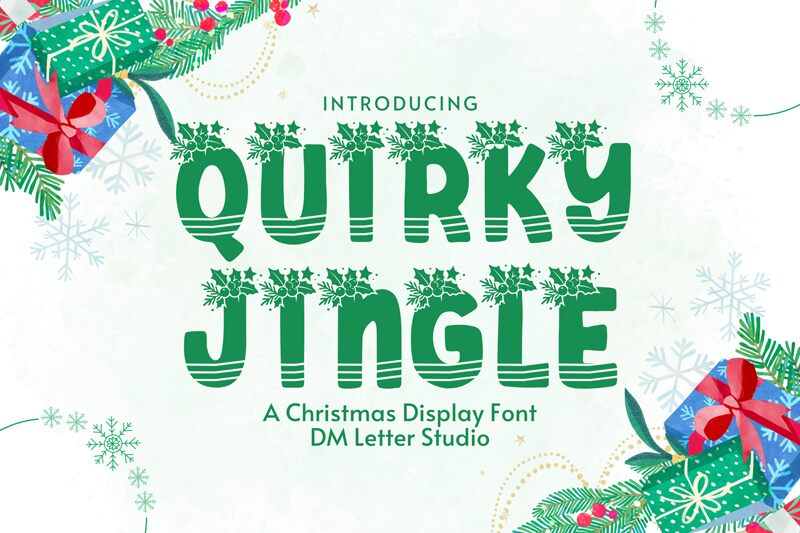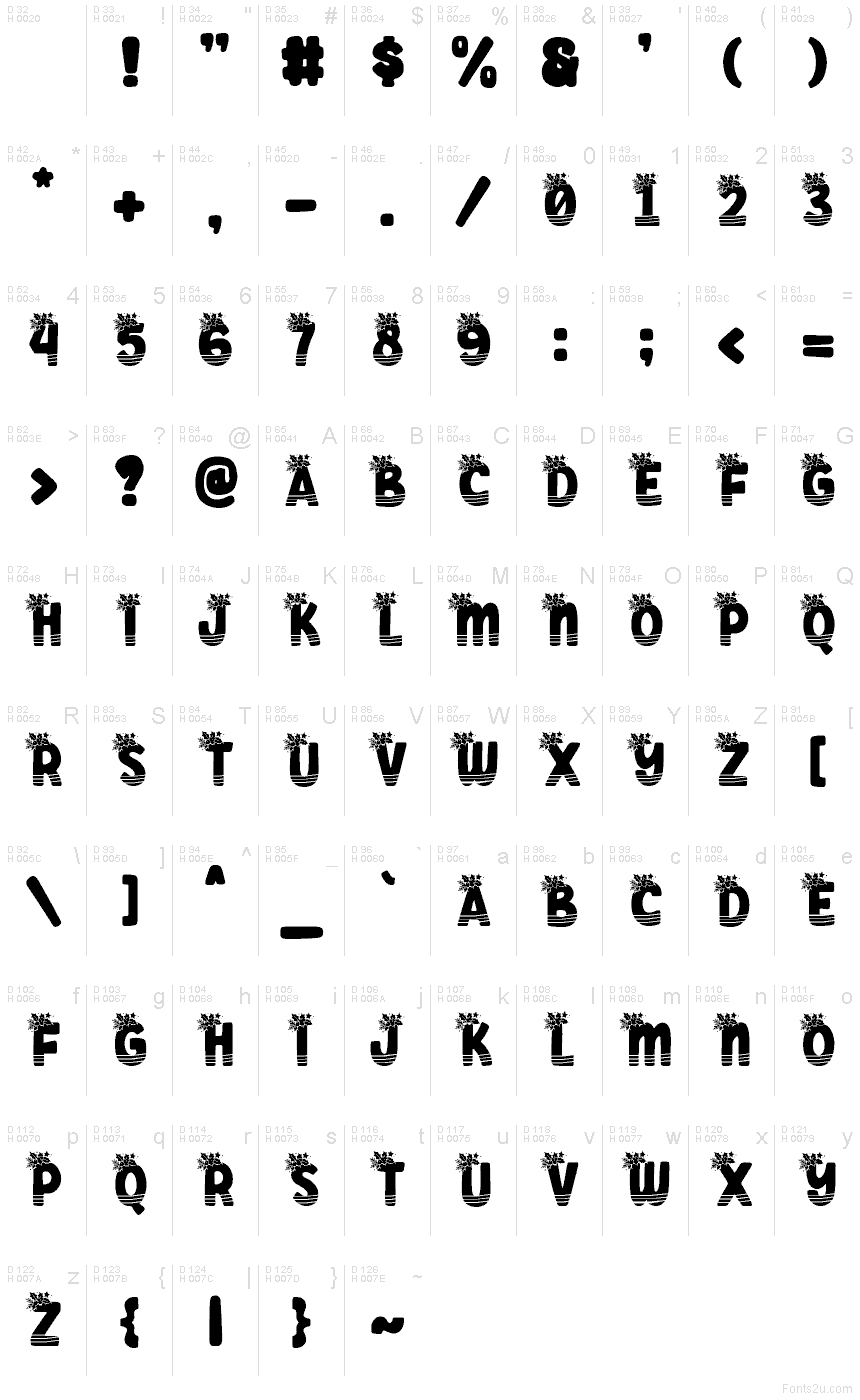
Quirky Jingle
Quirky Jingle font by DM Letter Studio - Dimas Prasetyo is a free Christmas holiday font that turns every word into a festive banner. Bold, chunky letters are wrapped in horizontal stripes like gift ribbon, while the tops are blanketed with dense holly leaves and berries, giving the type a textured, cut-paper feel. The shapes stay clean and readable underneath all the decoration, so you get loud seasonal character without losing clarity.
Using Quirky Jingle, your titles snap to attention on greeting cards, advent calendars, party invitations, classroom posters, product packaging, and social media graphics. This free font shines in big, joyful headings where the leafy tops and banded bodies can really breathe. Pair it with a simple sans-serif for body text and keep Quirky Jingle at larger sizes to let the holiday details stay crisp and charming.